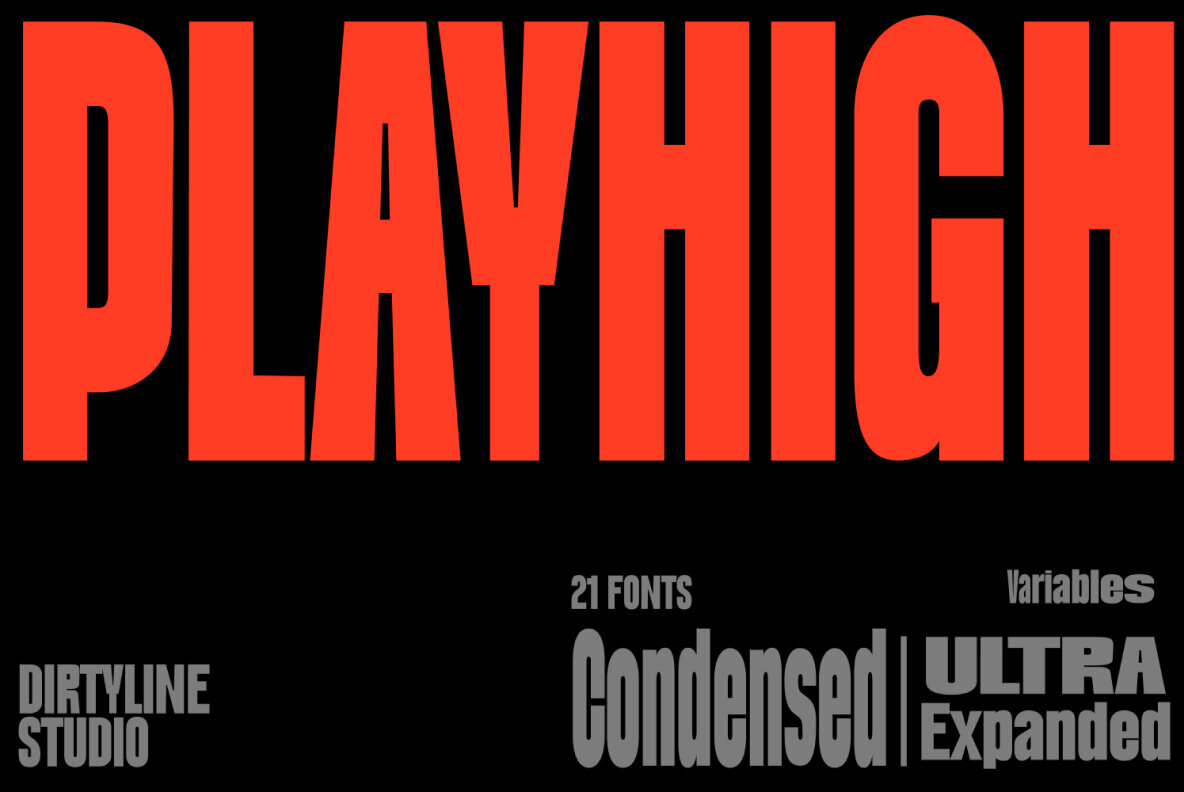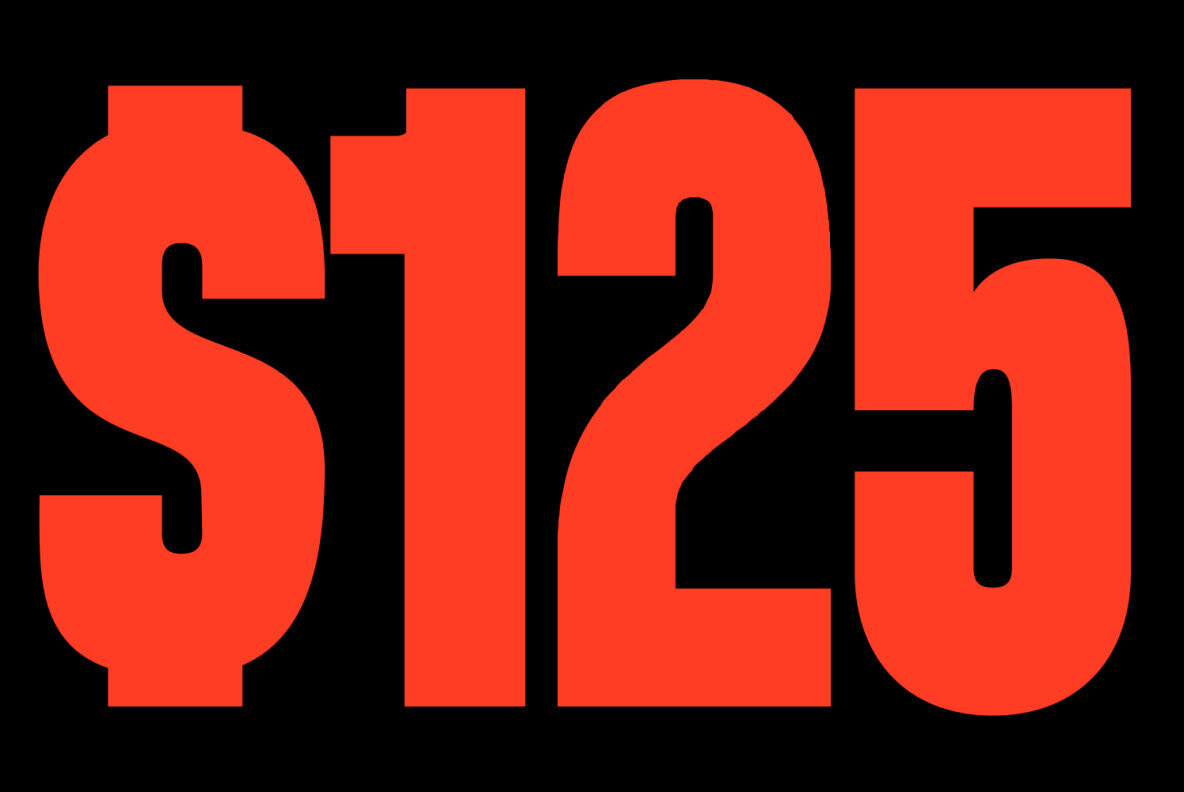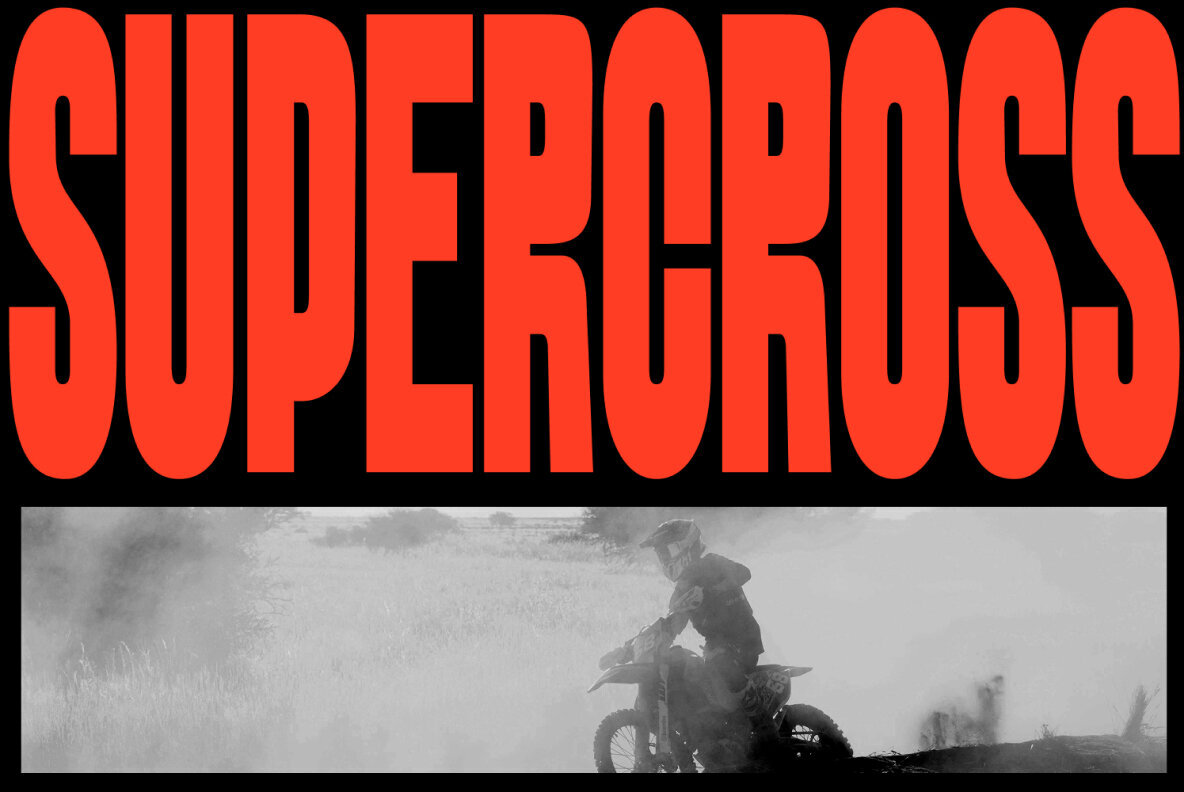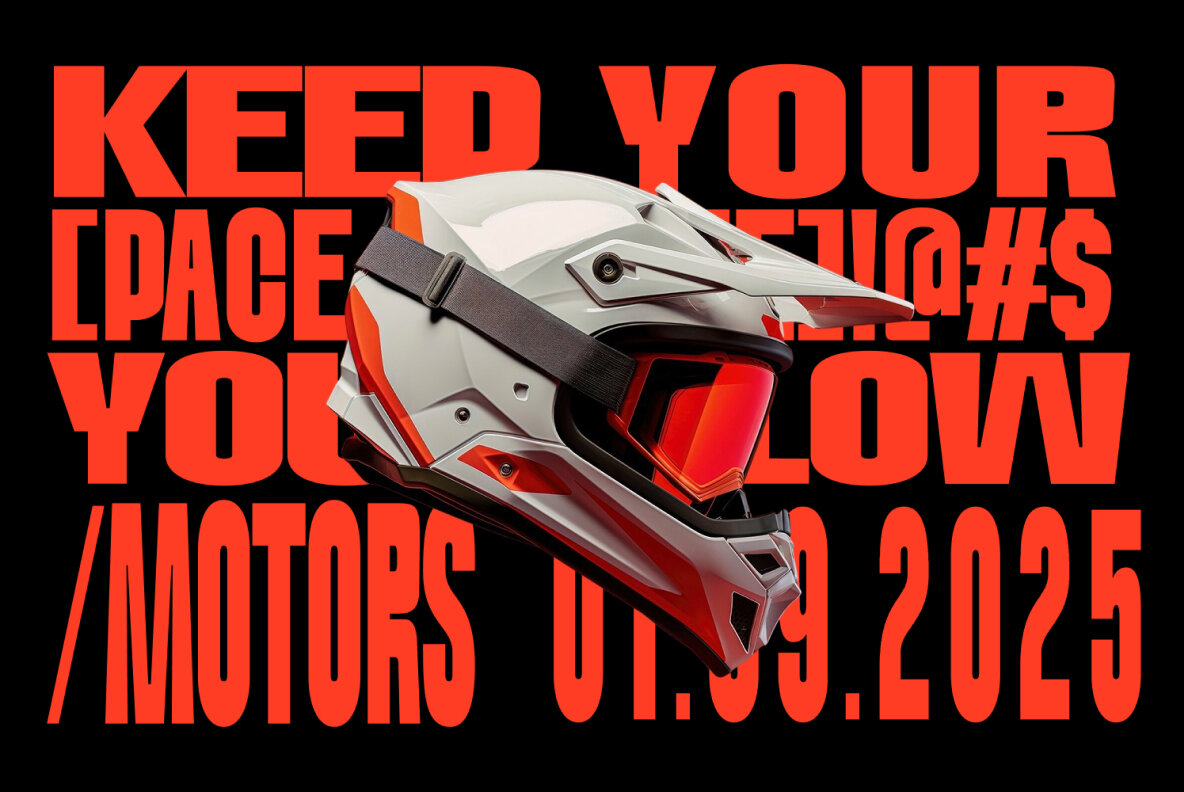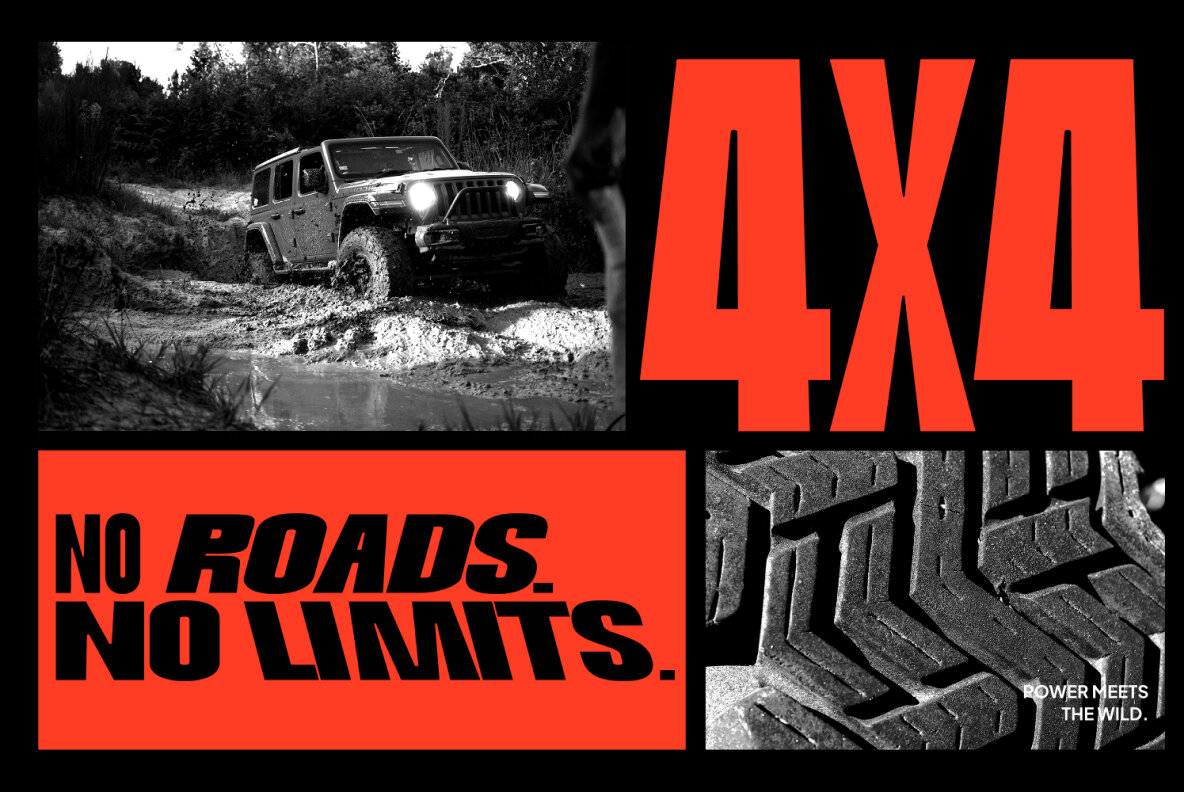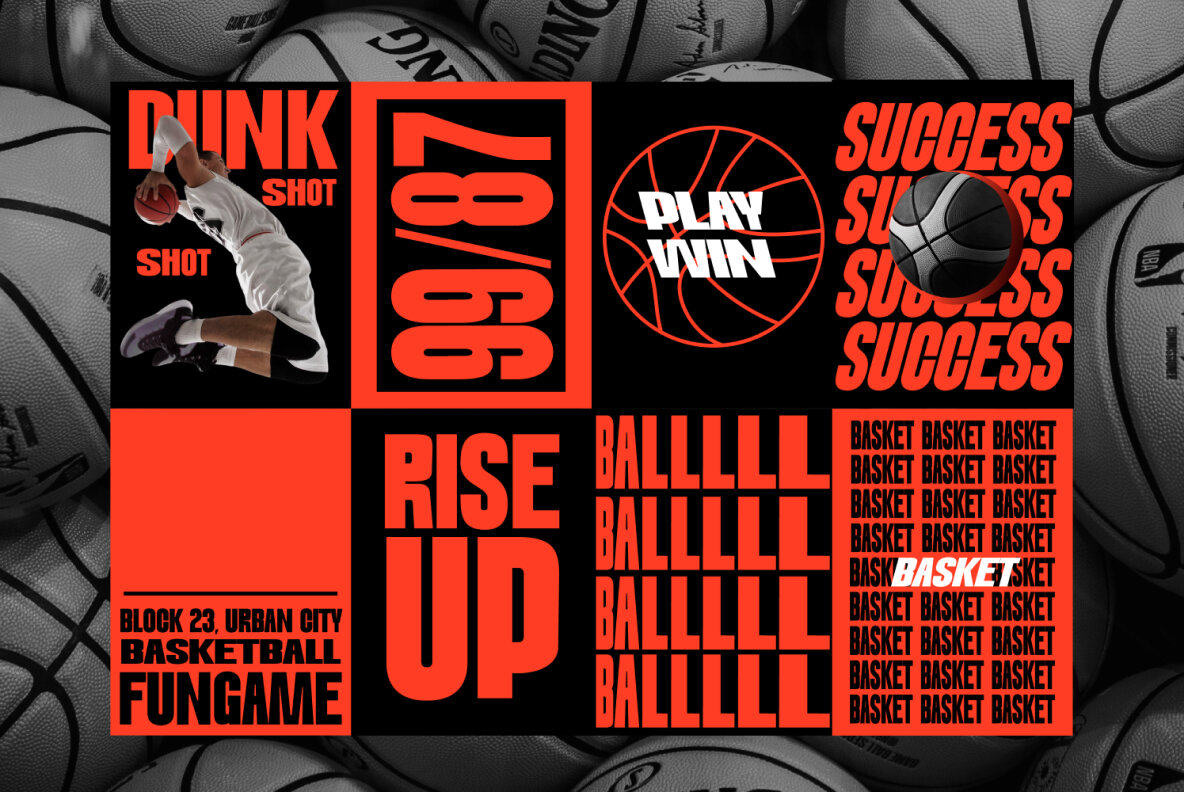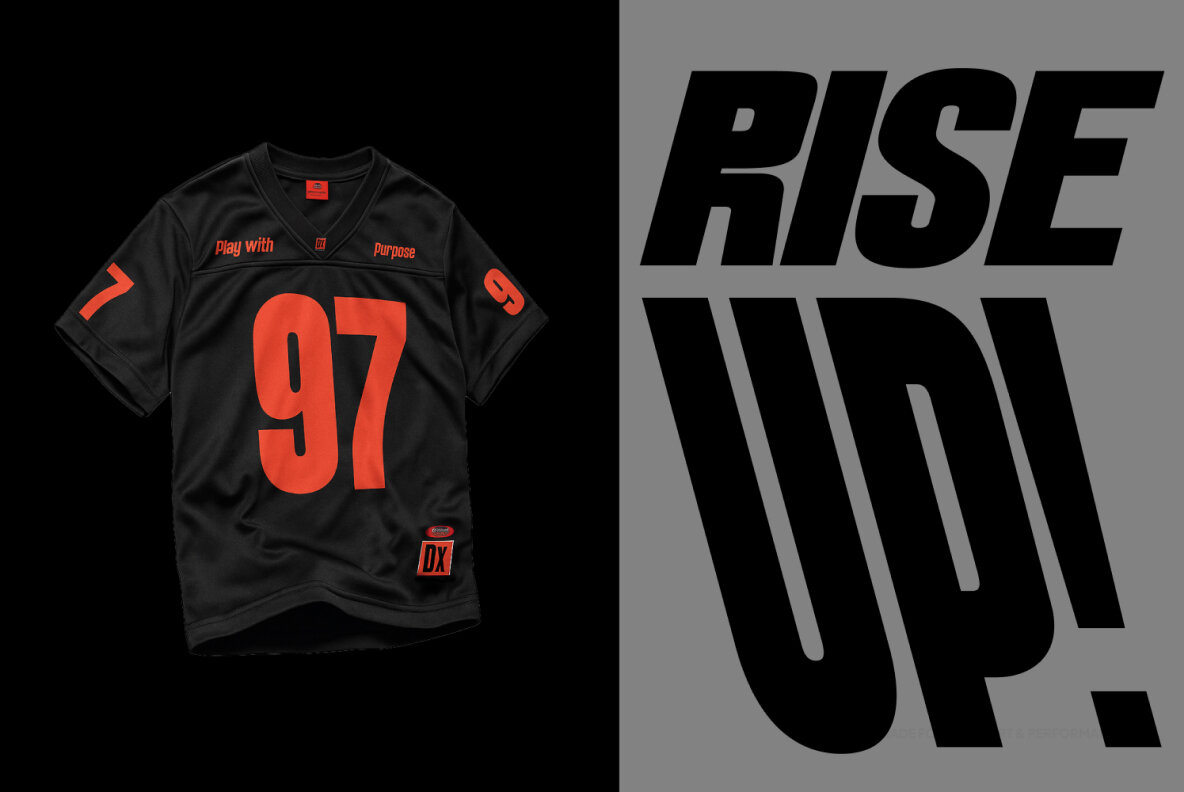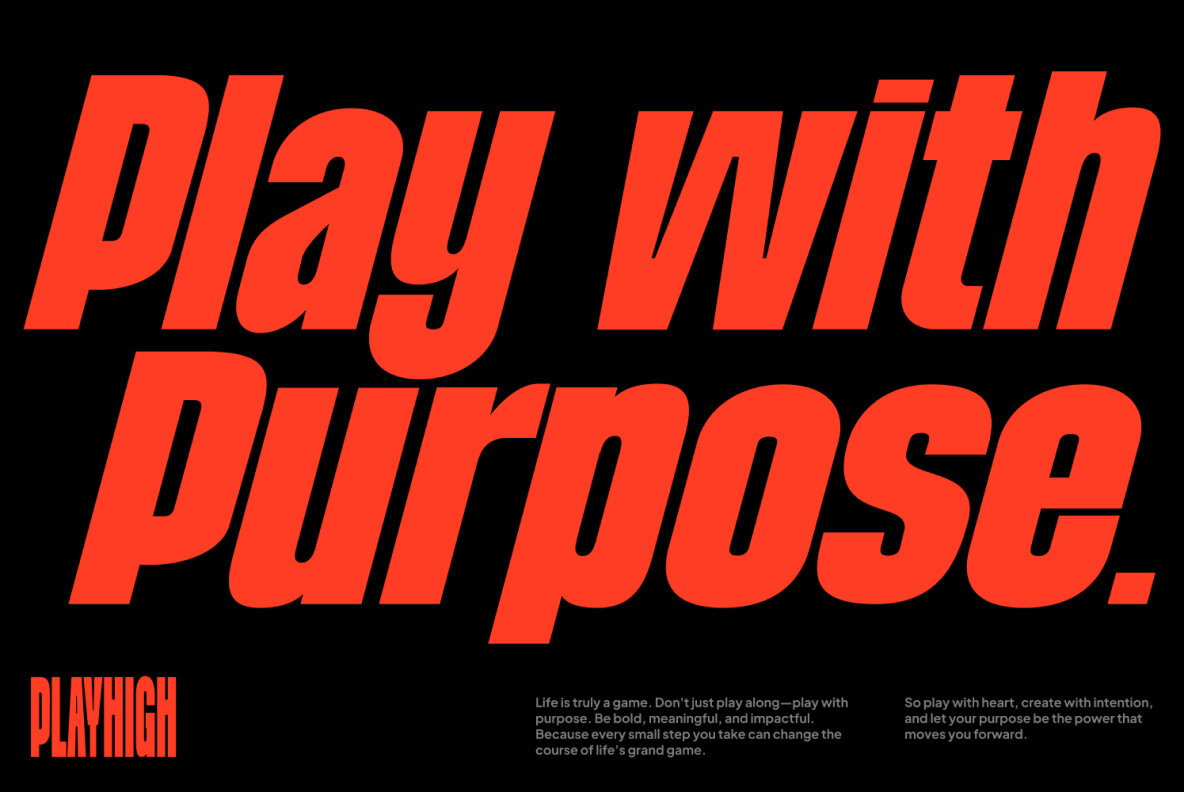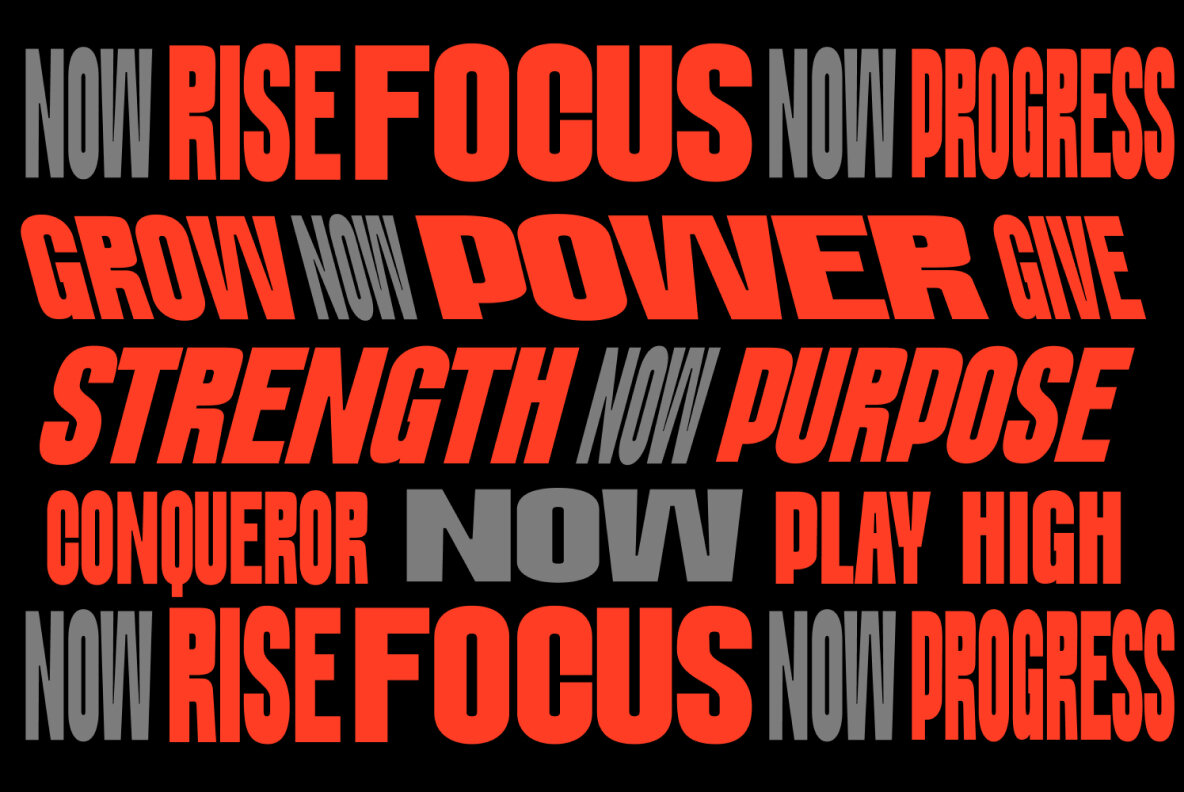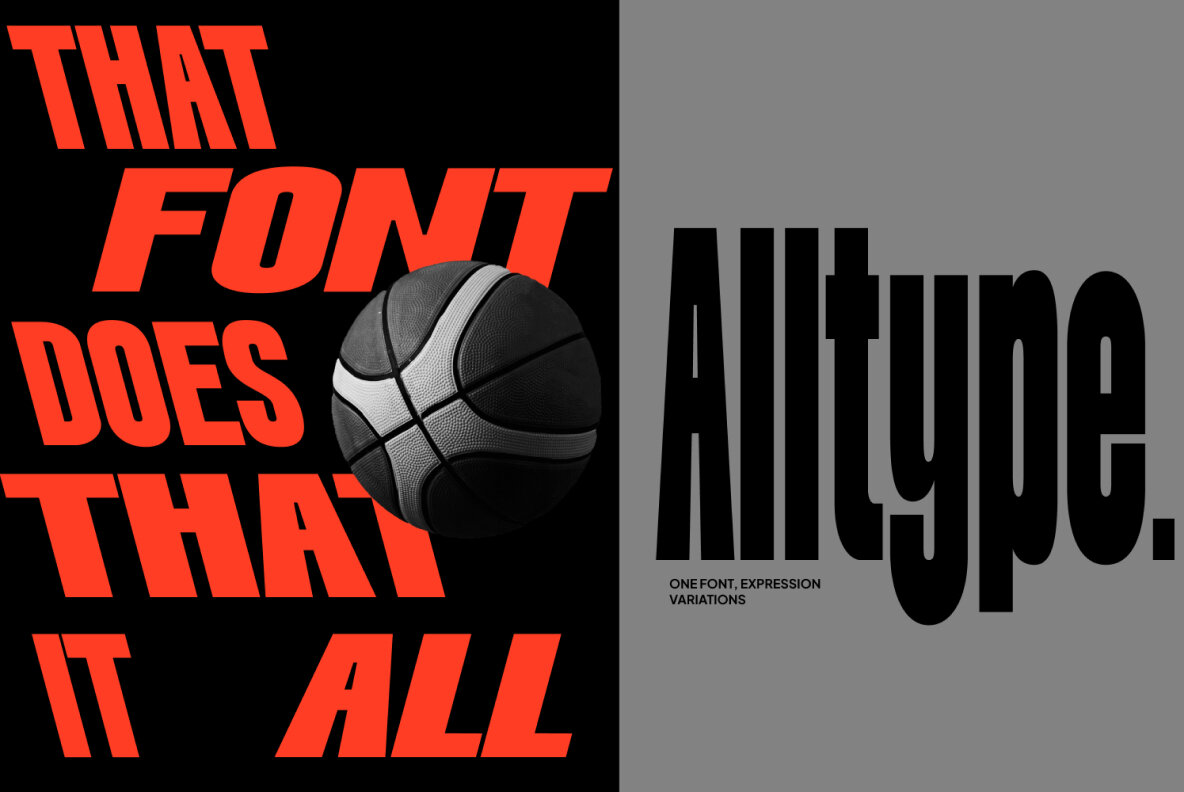
Dx Playhigh Font
DX Playhigh stands as a dynamic sans-serif font, ideal for those looking to infuse their work with strength and energy. Meticulously conceptualized by Dirtyline Studio, this font captivates with its commanding presence. Its adaptability makes it a versatile choice for a range of design applications. Featuring an impressive array of 21 styles from Condensed to Ultra Expanded, DX Playhigh offers designers unmatched creative freedom. With variable font technology, you can fine-tune its width and style to complement vibrant headlines, compelling posters, or innovative branding. DX Playhigh transcends being merely a font—it embodies a design tool that enhances your creative vision. Its robust letterforms, precise geometric shapes, and seamless weight transitions deliver a striking, contemporary appearance while maintaining clarity and professionalism.DX Playhigh: A Bold Variable Display Typeface
By integrating DX Playhigh into your design projects, you ensure a modern, confident flair, effortlessly adapting to everything from digital campaigns to avant-garde typography.